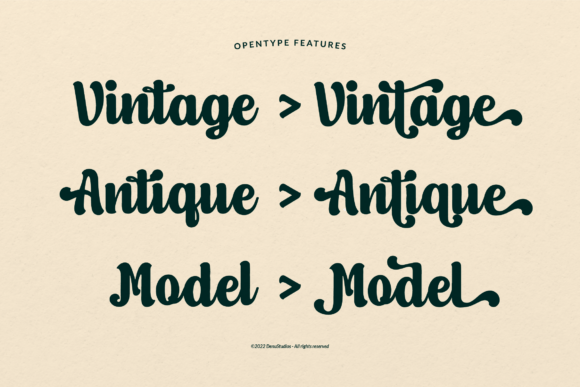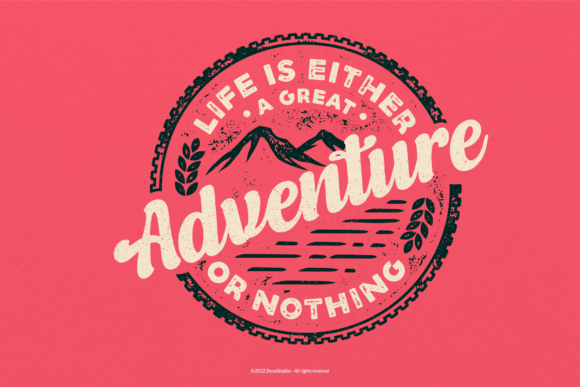
Introduction to Moods Hitage Font
Do you remember the thrill of stumbling upon the perfect font for your creative project? The one that elevates your design from ordinary to extraordinary? For designers, finding that elusive font can be a game-changer. And for those who crave a vintage charm, Moods Hitage Font is the perfect discovery.
This stylish retro script font boasts smooth curves, playful swashes, and a nostalgic feel that’s sure to transport your audience back in time. With over 280+ glyphs, ligatures, and alternates, Moods Hitage Font offers endless customization options, making it a valuable addition to any design resource library.
Whether you’re working on a branding project, creating eye-catching posters, or designing social media graphics, Moods Hitage Font is a high-quality resource that’s sure to bring your creative vision to life. And the best part? It’s available for free download, complete with a transparent background, making it easy to integrate into your design workflow.
Key Features of Moods Hitage Font
- Unique and elegant design, perfect for creative projects and design resources.
- High-quality font with transparent background, ideal for use on various design elements.
- Features a clean and modern aesthetic, suitable for a wide range of design applications, from branding to digital art.
Honest Review: Moods Hitage Font
I recently stumbled upon the Moods Hitage Font, and I must say it’s a fantastic addition to any design resource collection. The high-quality font is perfect for creative projects that require a touch of elegance and sophistication.
What works well is the extensive range of characters, including both uppercase and lowercase letters, numbers, and even symbols. The font is also highly customizable, making it an excellent choice for designers who like to experiment with different styles. ✨
One of the standout features of the Moods Hitage Font is its transparent background, which allows for seamless integration with any design background. This makes it ideal for creating visually appealing graphics, logos, and even website headers.
Here are some key features of the Moods Hitage Font:
- High-quality font design
- Extensive range of characters
- Perfect for creative projects
However, one potential limitation of the Moods Hitage Font is its limited support for certain languages. ⚠️ While this may not be a major issue for English-speaking designers, it’s essential to consider this factor when working on international projects.
Overall, I’m thoroughly impressed with the Moods Hitage Font, and I would highly recommend it to anyone looking for a high-quality, versatile font for their design projects.
For the best results, use Moods Hitage Font in conjunction with a high contrast background to make the text stand out. Additionally, consider using the font in combination with other design elements to create a cohesive and visually appealing design.
Moods Hitage Font is suitable for a variety of creative projects, including graphic design, digital art, and even print materials. It’s also available for free download, making it an excellent choice for designers on a budget.